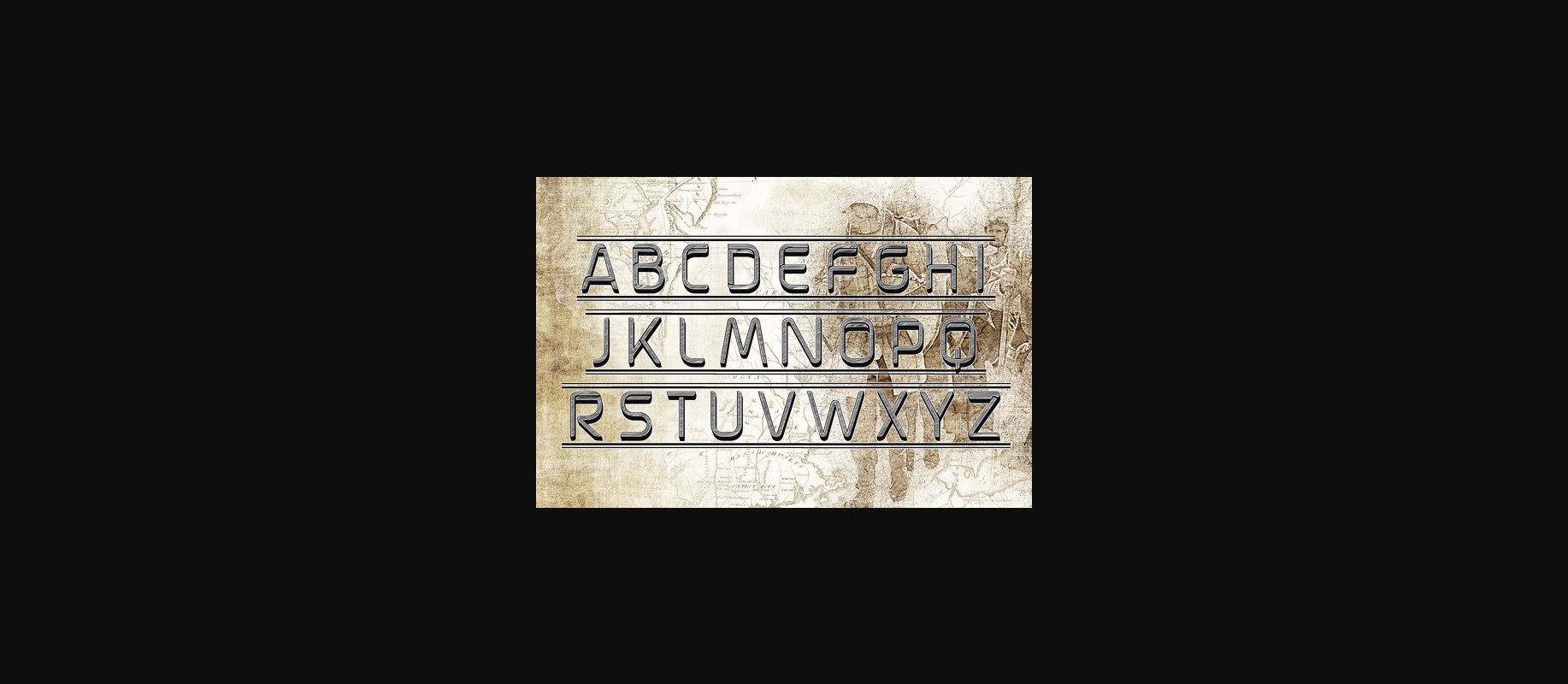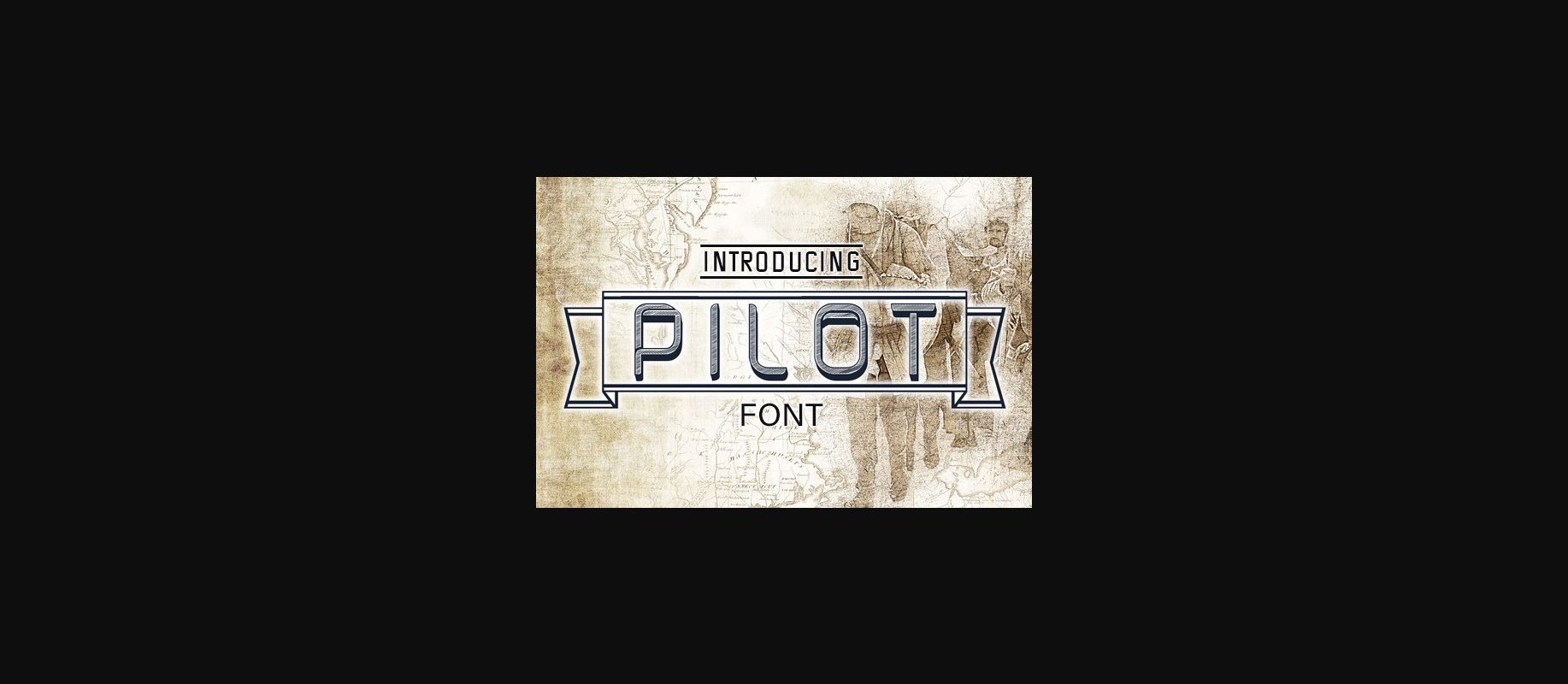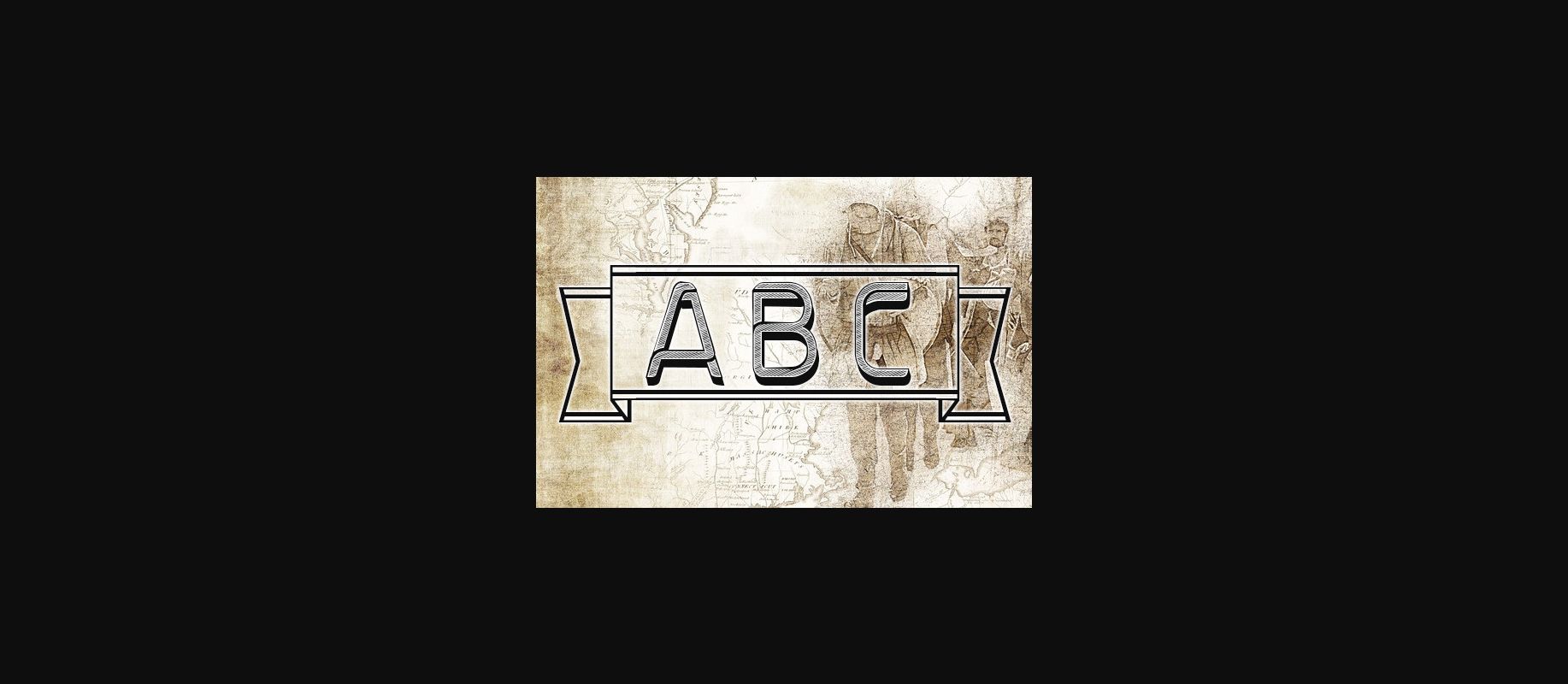
HomeDecorative FontsPilot Font Decorative Fonts Pilot Font FacebookXPinterestWhatsApp 1 of 5 ... Pilot Font Poster 2... Pilot Font Poster 3... Pilot Font Poster 4... Pilot Font Poster 5... About Pilot Font Pilot is an awesome decorative ribbon font that will look stunning on any of your designs. Use this font on templates, shirts, and posters. DOWNLOAD NOW People also explored Devita Font Rainy Font Quotable Font Constaince Matequeen Font Strobe Font Milky Cream Font We The People Jenny Lolita Font Der Weiner Stentzel 420 0 TagsPilotPilot Font Previous articleMarry Lovely FontNext articleMatilda Beatrix Font LEAVE A REPLY Cancel reply Comment: Please enter your comment! Name:* Please enter your name here Email:* You have entered an incorrect email address! Please enter your email address here Website: Save my name, email, and website in this browser for the next time I comment. Personal Use Free Rosebirth Personal Use Free Read more about this font Anti Personal Use Free Read more about this font Denisha Personal Use Free Read more about this font Monofonto Personal Use Free Read more about this font BLOG Transform Your Website: Elevate Your Typography with 7 Best Web Font Generators Are you ready to transform your website's typography from ordinary to extraordinary? Great! Today, we're diving into the world of web font generators, which... Where to Buy American Fonts Online in 2024 5 Fonts That Will Dominate Design Trends in 2026 Exploring Font Trends